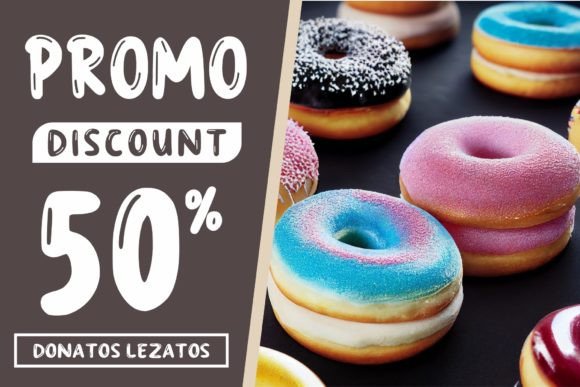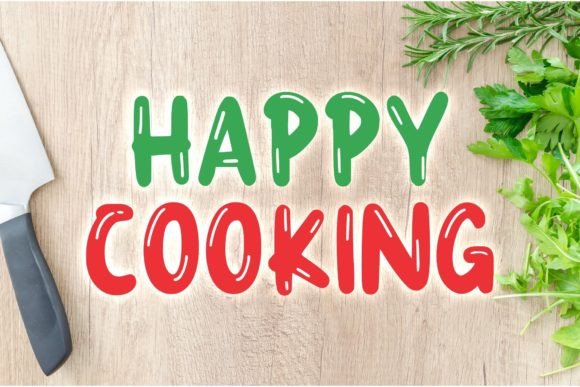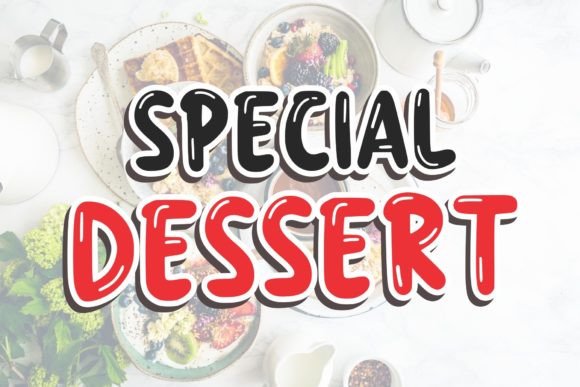
Introduction to Choco Liquid Font
Choco Liquid is a brave and fun display font that will make your creative project extraordinary.
Choco Liquid is a brave and fun display font that will make your creative project extraordinary! This font is very suitable for shirts, stickers, covers of books, children’s books, social media shipme
Key Features of Choco Liquid Font
Why Choose Choco Liquid Font?
Choco Liquid Font offers exceptional quality and versatility, making it a valuable addition to your design toolkit. Whether you’re creating for personal projects or commercial use, Choco Liquid Font delivers professional results.